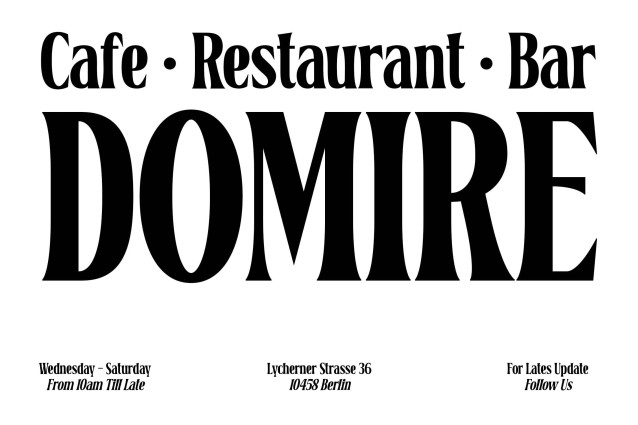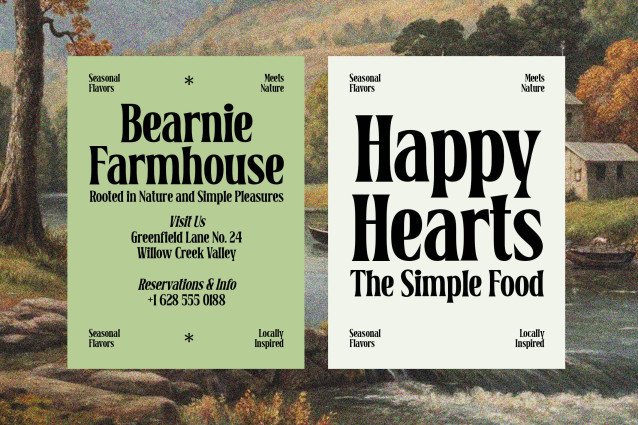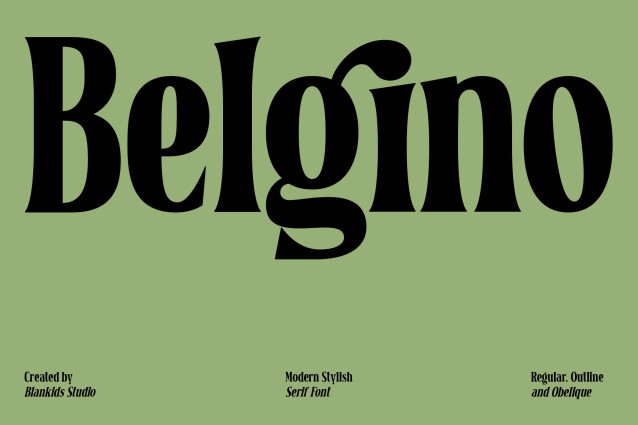
Belgino Font
Belgino Font is a modern stylish serif font designed to bring elegance, personality, and high-end character into your typography. With its bold curves, sharp serifs, and distinctive letterforms, Belgino delivers a perfect balance between classic sophistication and contemporary style.
This typeface is crafted to stand out in large headlines while still maintaining excellent readability. Its dramatic contrast and unique shapes make every word feel premium, expressive, and memorable.
Belgino is built for designers who want their work to look classy, confident, and modern without feeling complicated or hard to read. The font carries a fashionable editorial vibe, making it ideal for branding and luxury design projects.